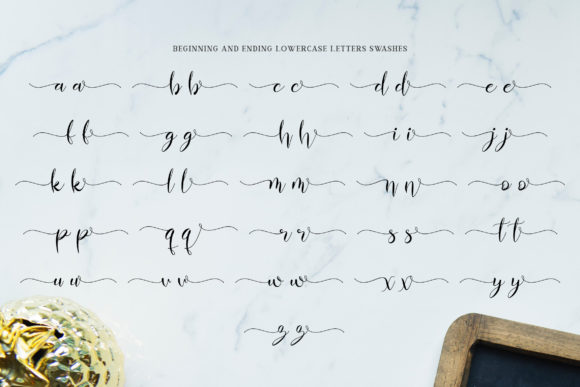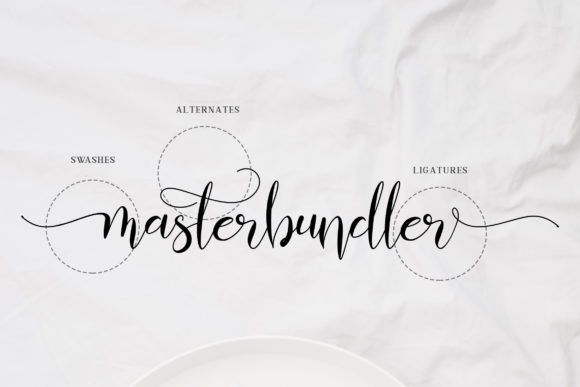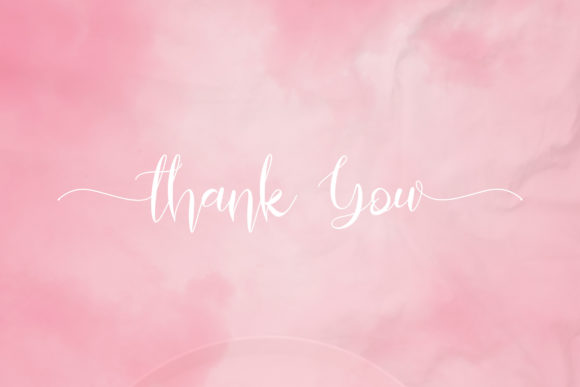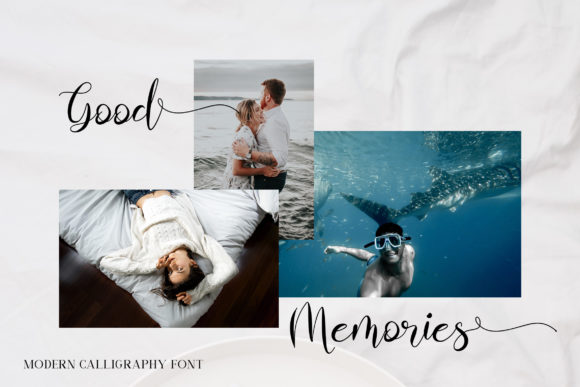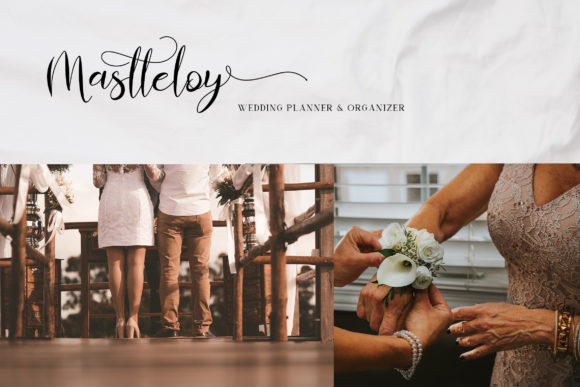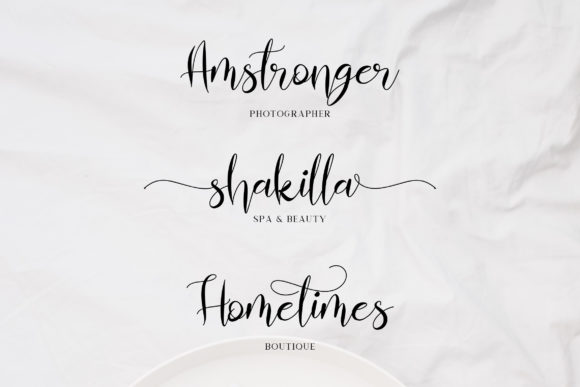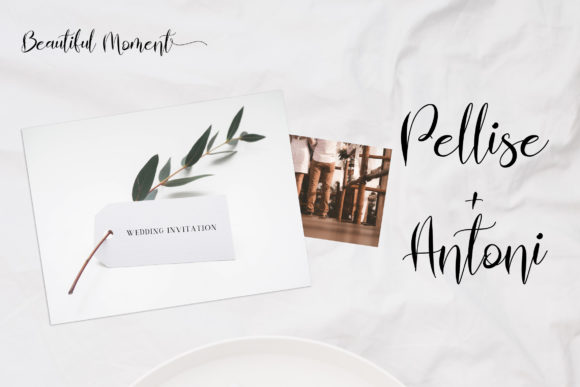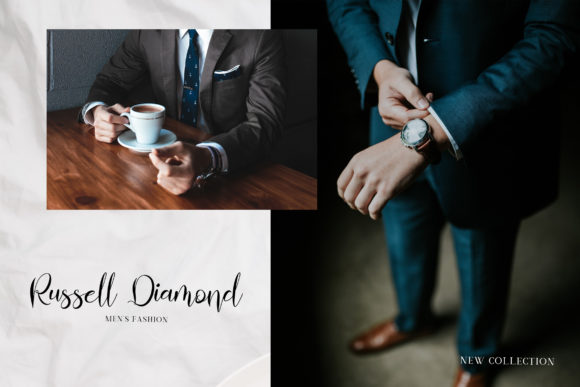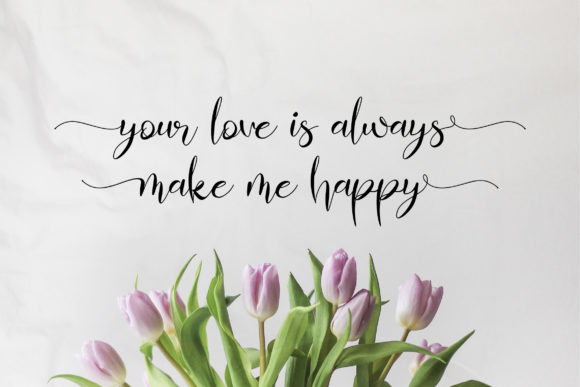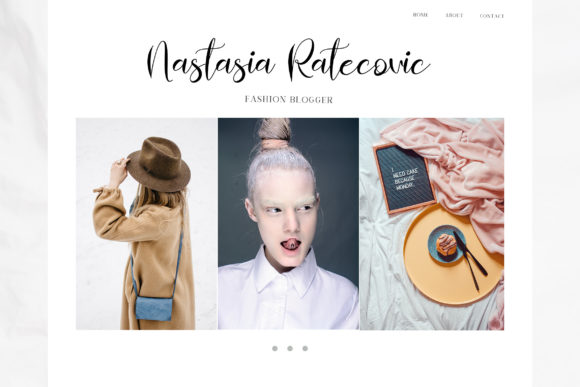
Almahira Script Font
About Almahira Script Font
The Almahira is a modern calligraphy typeface. It has a beautiful luxurious look and is perfect for adding a stylish elegant touch to your designs.
It can be used in a plethora of designs in both digital and print applications.
The Almahira is the best choice for your professional design projects, including: signatures, watermarks on photography, quotes, album covers, book covers, business cards, logos, branding, magazines, social media, advertisements, product designs, and many other design projects.